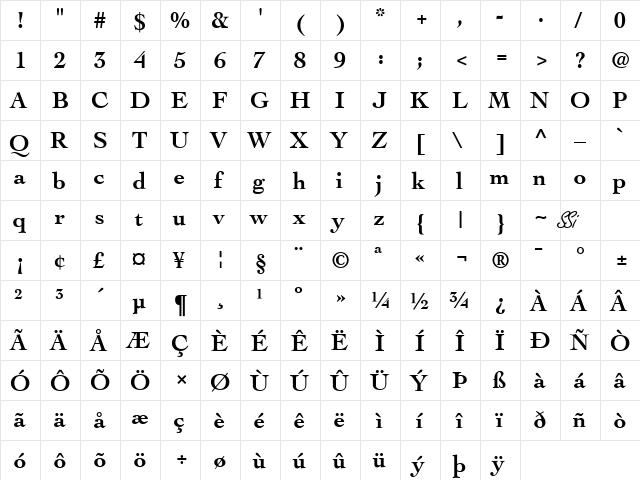
Thesis SSi Bold
Design Context for Thesis SSi Typeface
Thesis SSi takes a measured approach to typography — its balanced proportions and neutral character make it a reliable workhorse for both digital and print work. Its bold stroke weight gives it real presence on the page.